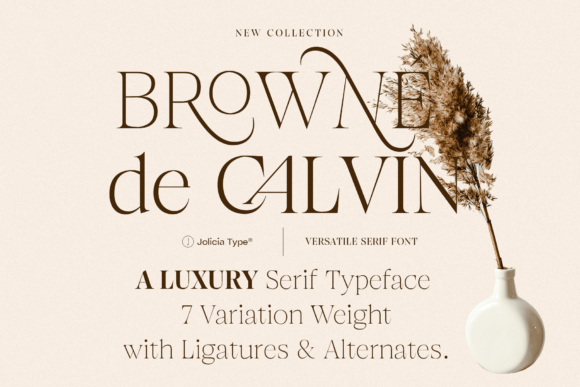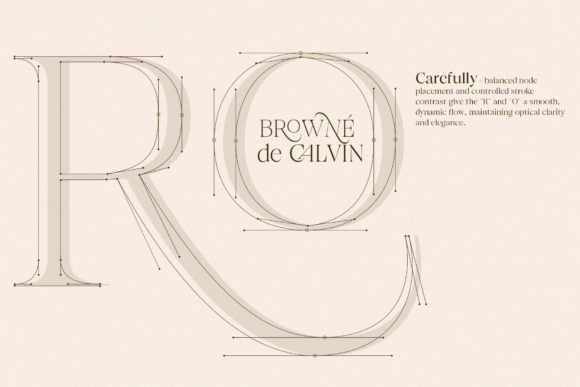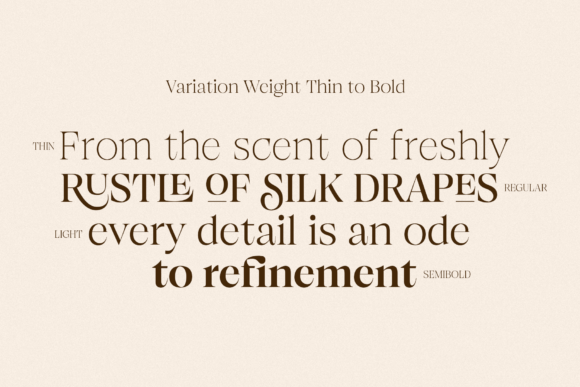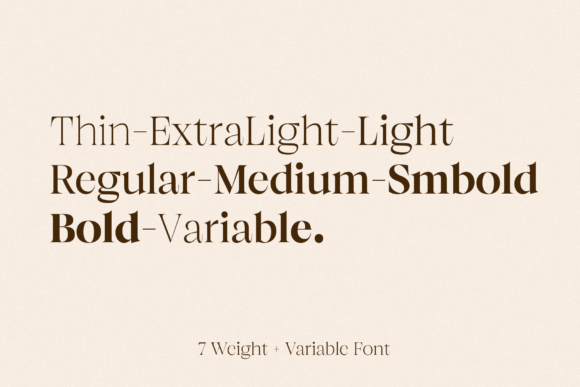
Browne De Calvin Font
About the Browne De Calvin Font
Introducing the Browne De Calvin Font, a beautifully crafted typeface designed to elevate your creative projects. Introducing Browne de Calvin, a timeless serif typeface crafted with exquisite elegance and sophisticated precision. Designed to embody the spirit of luxury, Browne de Calvin blends the classic beauty of Roman serif tradition with a contemporary refinement, making it a perfect choice for high-end branding, editorial designs, invitations, and more.
Browne de Calvin’s elegant serif forms excel in headlines, logos, and short-form text such as invitations or certificates. Its refined character lends itself well to luxury branding and high-end product packaging, conveying sophistication and timeless quality. However, its intricate details make it less suitable for body text or UI elements requiring high readability at smaller sizes.
For optimal visual harmony, pair Browne de Calvin with a clean sans-serif like Helvetica Neue for a classic contrast, or a modern geometric sans-serif for a more contemporary feel. A delicate script font could also complement its elegance for secondary text elements, adding a touch of handwritten charm without clashing.
The overall personality of Browne de Calvin is sophisticated and refined, projecting an air of understated luxury and timeless elegance. It’s best suited for brands and projects aiming for a classic yet contemporary image.
Browne De Calvin Font Usage Examples
Browne De Calvin Font Example